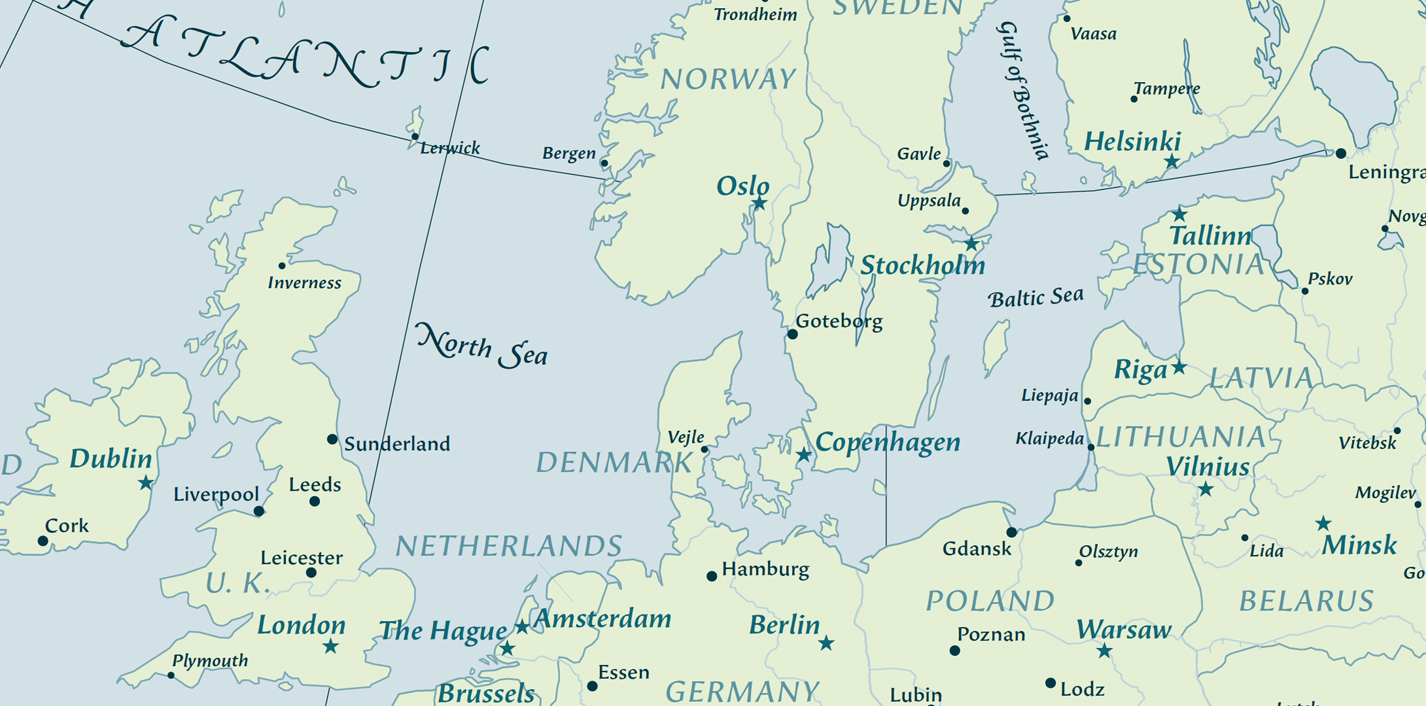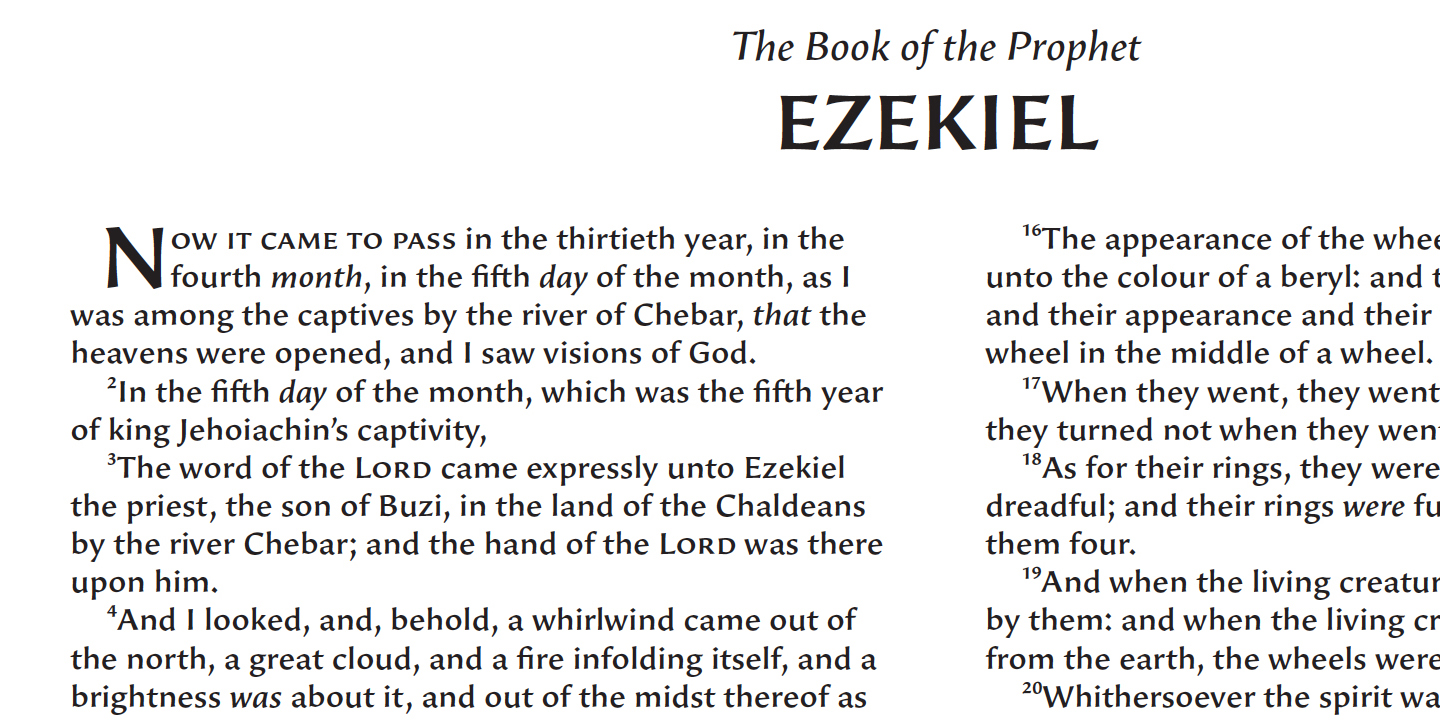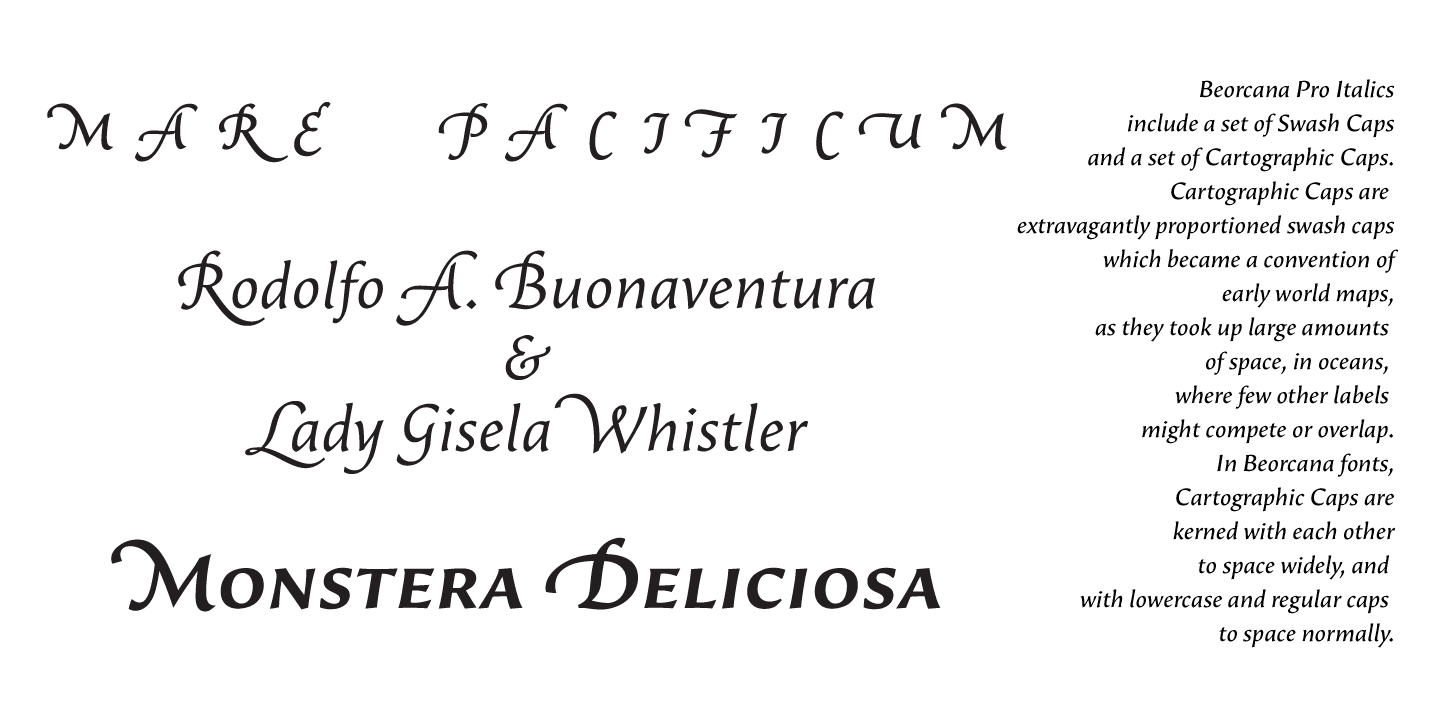
by Terrestrial Design
Beorcana can be classified as a serifless roman, a stressed sans, a glyphic sans, or calligraphic sans. However it is classified, Beorcana derives not only from other stressed sans designs like Lydian, Amerigo and Optima, but also utilizes classic Renaissance proportions in both Roman and Italic, which facilitate extended reading.
Beorcana is available in Display, regular Text and Micro styles. Beorcana’s Text styles offer comfort and liveliness in books, dictionaries, magazines and other reading-intensive settings. Display styles offer a stately and organic flavor for any application. Micro styles perform in tight and dense settings like dictionaries, bibles, maps and fine print.
The name Beorcana is a variant of the Icelandic word for the Birch tree, and the related words for the Icelandic rune. Many variant spellings are used for the tree and the rune: Beorc, Berkanan, Birkana, Bercano, Bjork, Bjarka. The Birch was revered as a symbol of renewal, due to its role as a pioneer species in burned, boggy or otherwise unforested areas.
Designer: Carl Crossgrove
Designed: 2006
Foundry: Terrestrial Design